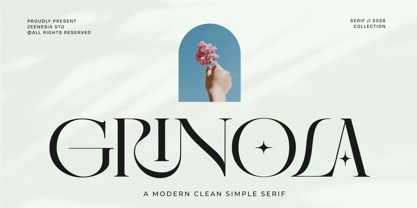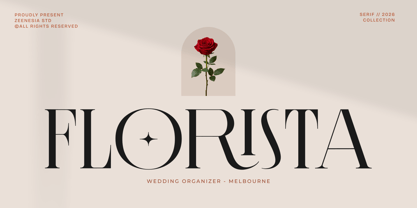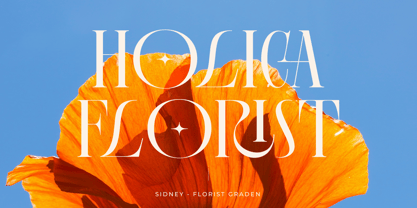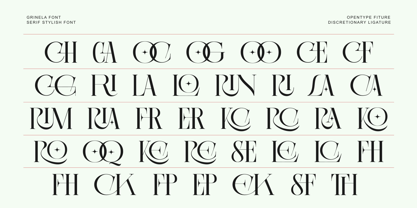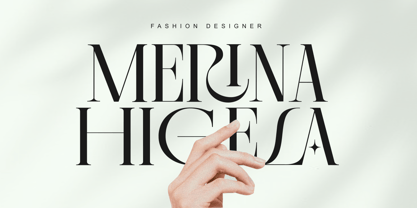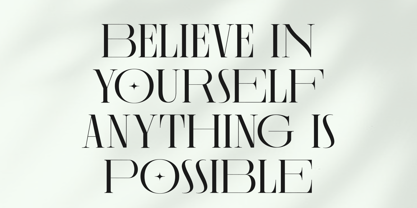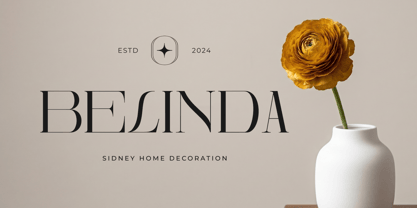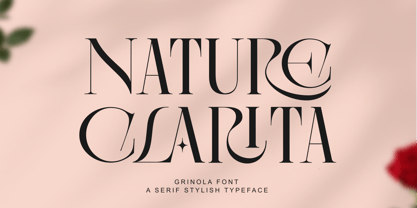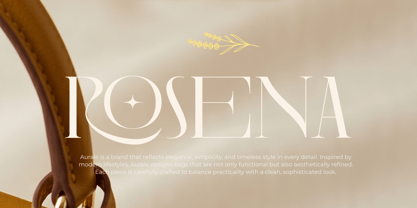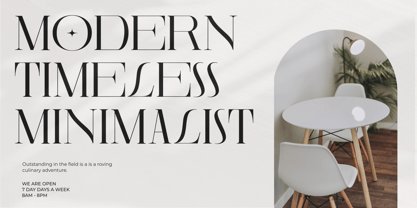
Grinola
by Zeenesia Studio
The Grinola Font Family was designed by Doni Purwoko and published by Zeenesia Studio. Grinola contains 1 styles. More about this family
GRINOLA is a modern clean serif font crafted with graceful curves, refined contrasts, and artistic letterforms that instantly elevate any design. Inspired by timeless editorial beauty and contemporary luxury aesthetics, GRINOLA brings a sophisticated yet soft personality to branding, fashion, beauty, wedding, packaging, and premium typography projects.
With its stylish alternates and unique character details, this font creates a memorable visual presence while maintaining excellent readability. Every curve is designed to feel elegant, minimal, and effortlessly modern — perfect for designers who want to create a luxurious and artistic impression.
Designers: Doni Purwoko
Foundry: Zeenesia Studio